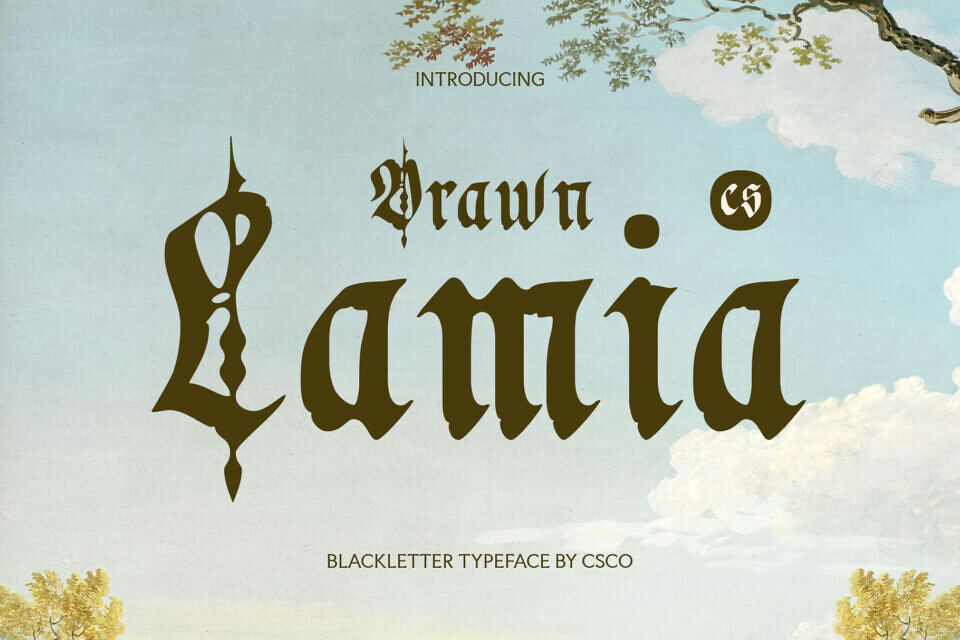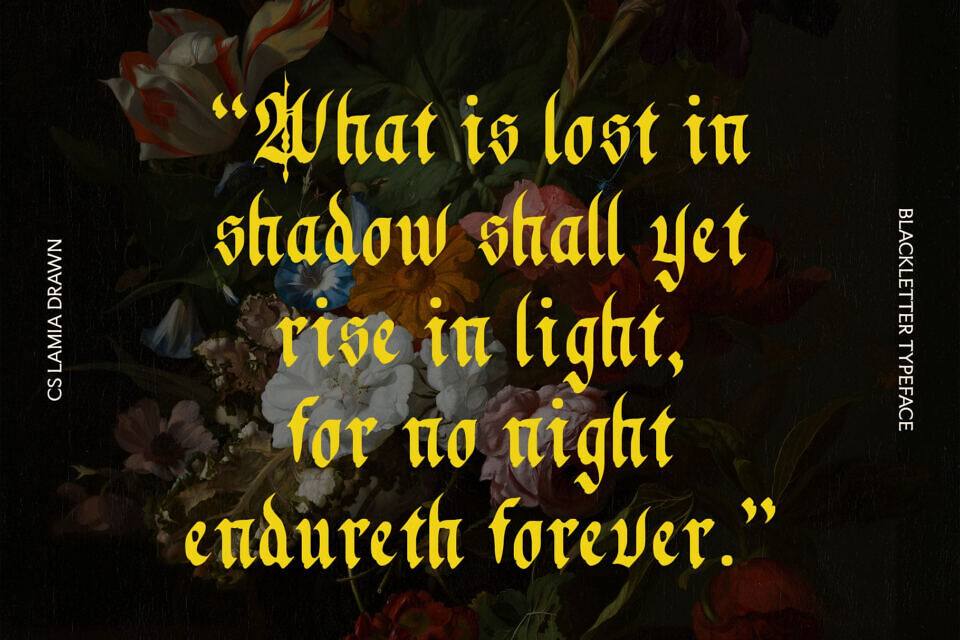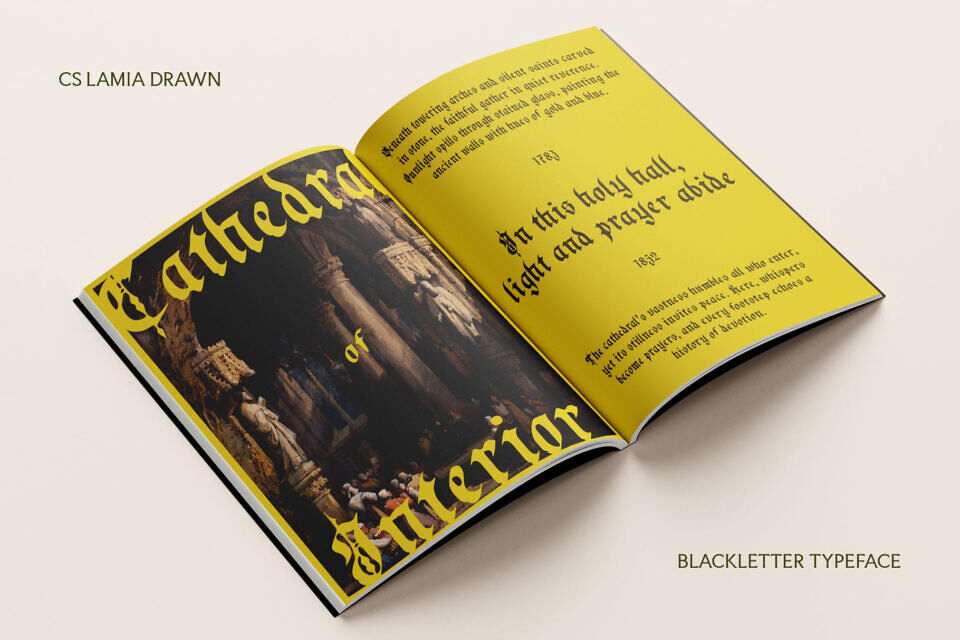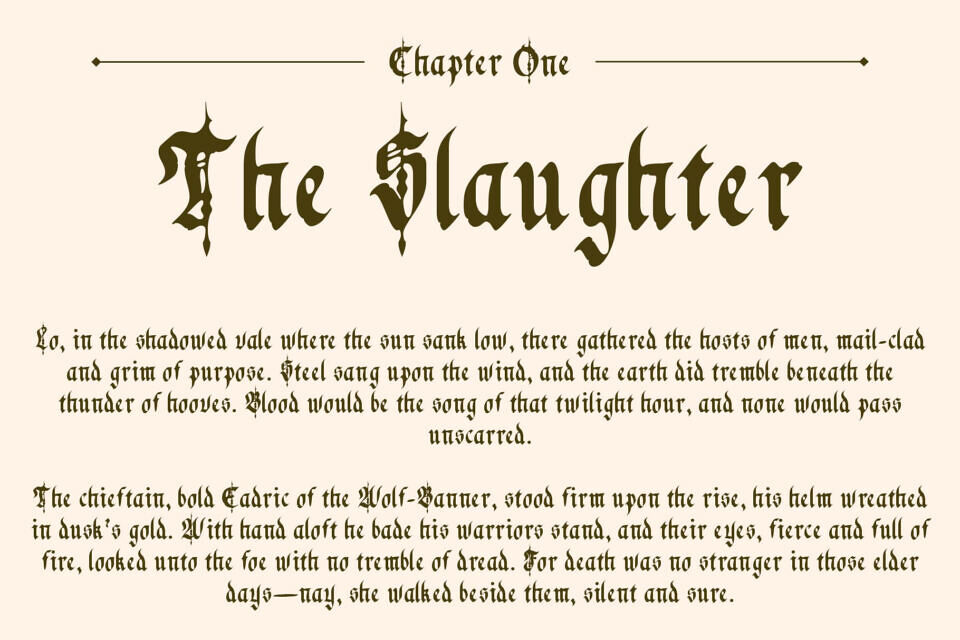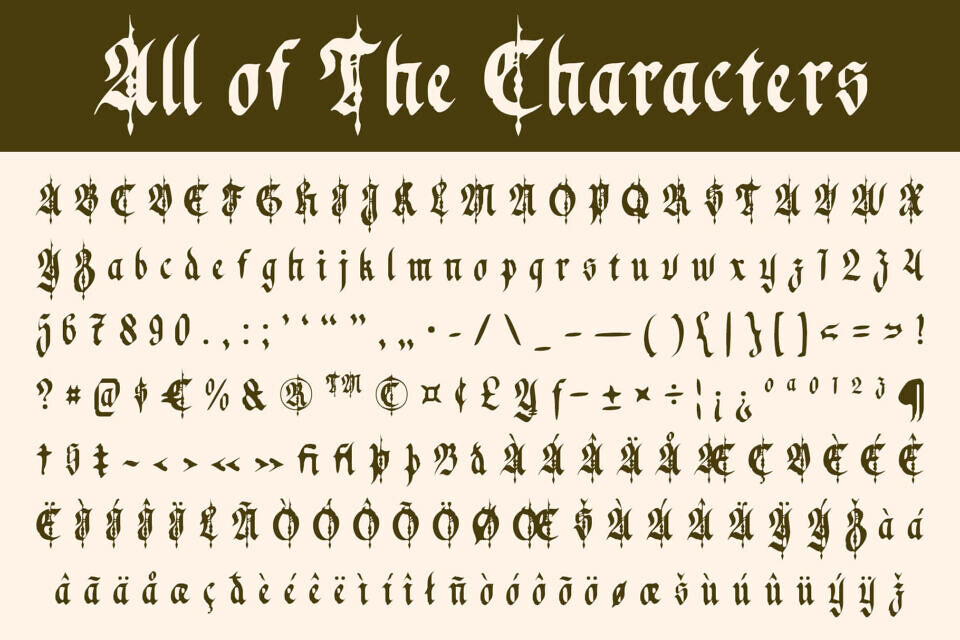
CS Lamia Drawn is a display font that merges the timeless structure of traditional blackletter with the raw personality of hand-drawn illustration. Its sharp, angular forms and dramatic contrast pay homage to classic Gothic scripts, evoking a sense of antique elegance, mysticism, and historical depth.
Unlike rigid and formal blackletter styles, this mystical font introduces a looser, more expressive rhythm through its drawn effect. The result is a visually rich and unconventional font that retains the ornate authority of blackletter while exuding a creative, almost rebellious spirit.
Ideal for music posters, alternative branding, editorial covers, fantasy themes, or historical-inspired graphics, this intense and arcane font is perfect for any project seeking to balance antique charm with expressive energy.